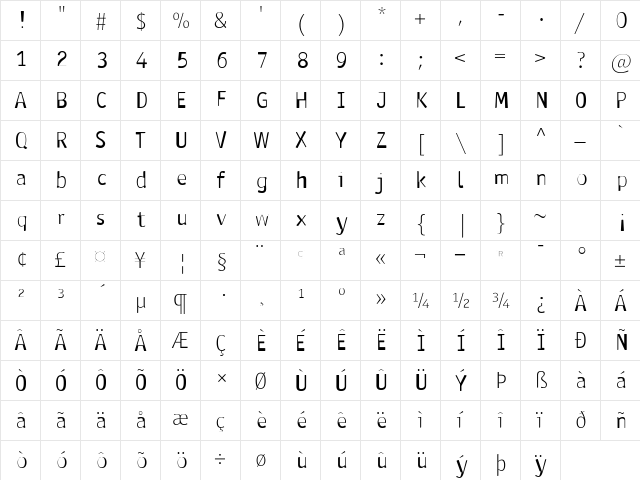
Antaviana Normal
Design Context for Antaviana Typeface
Antaviana is a composed and adaptable typeface that performs quietly and consistently across a wide range of design contexts.